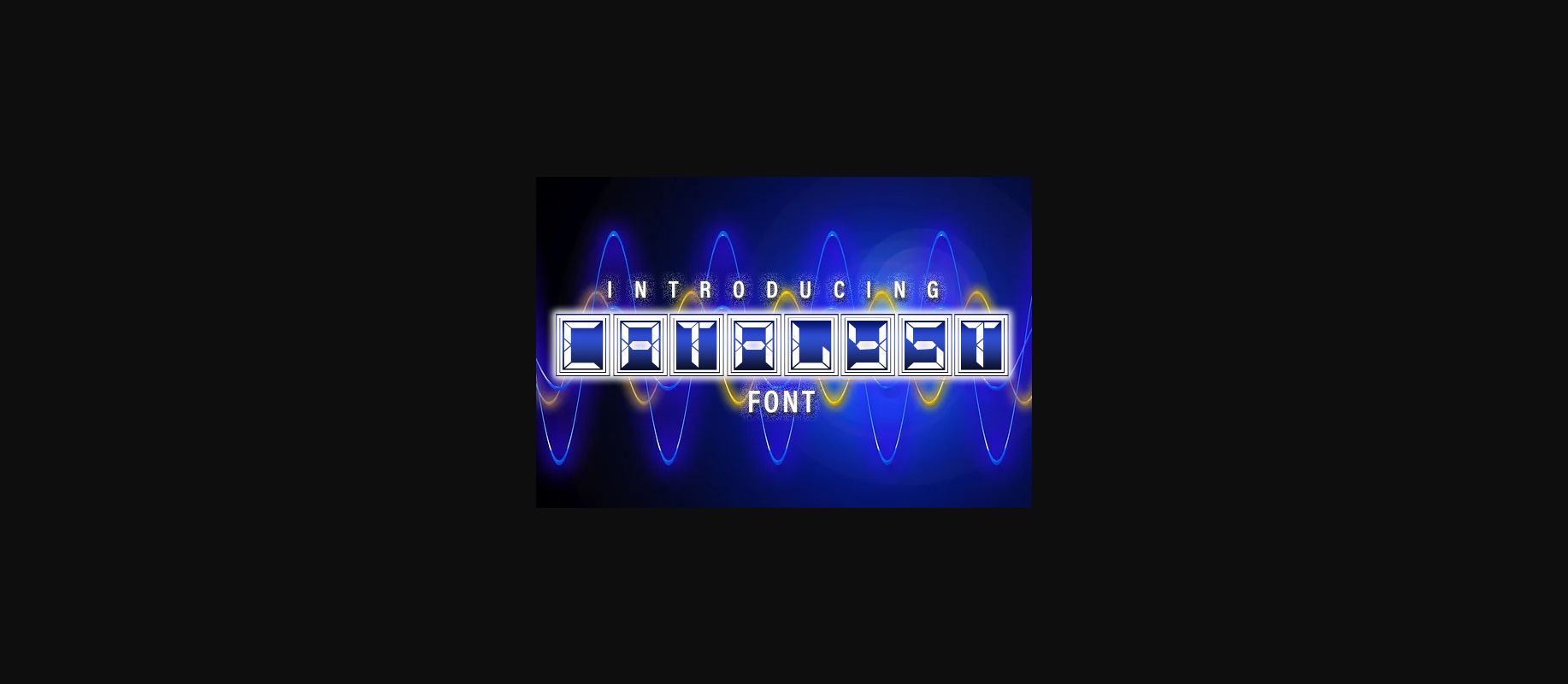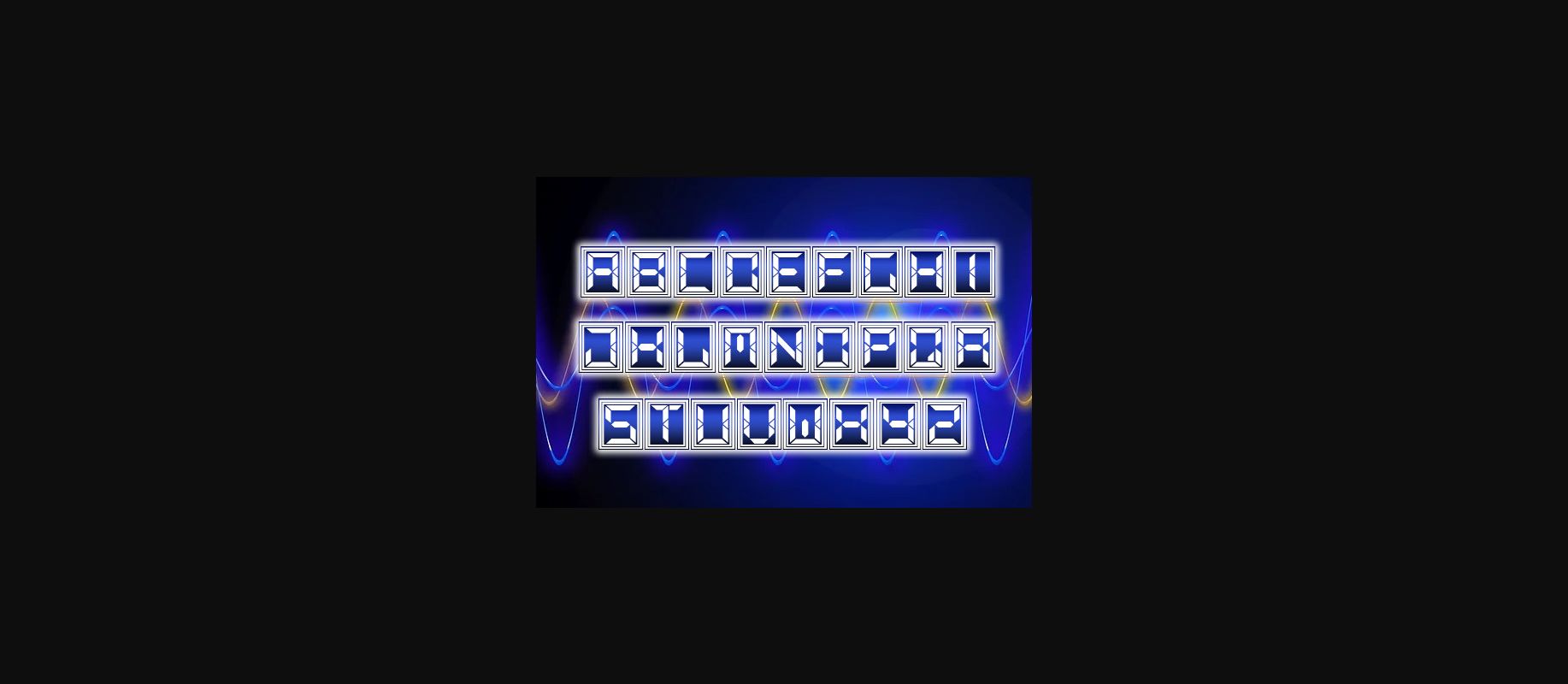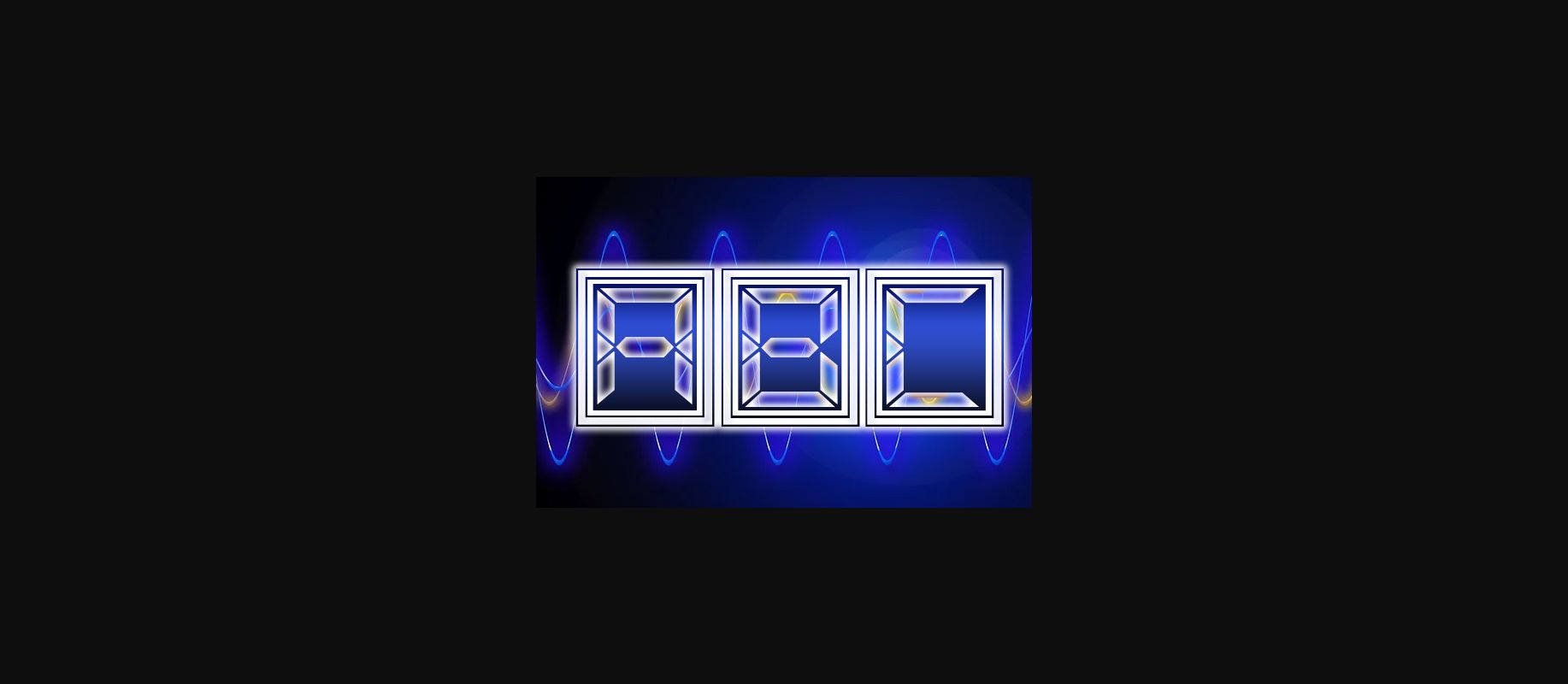
About Catalyst Font
Catalyst is an awesome LCD typeface that will look stunning on any of your designs.
Use this font on posters, flyers, and banners.